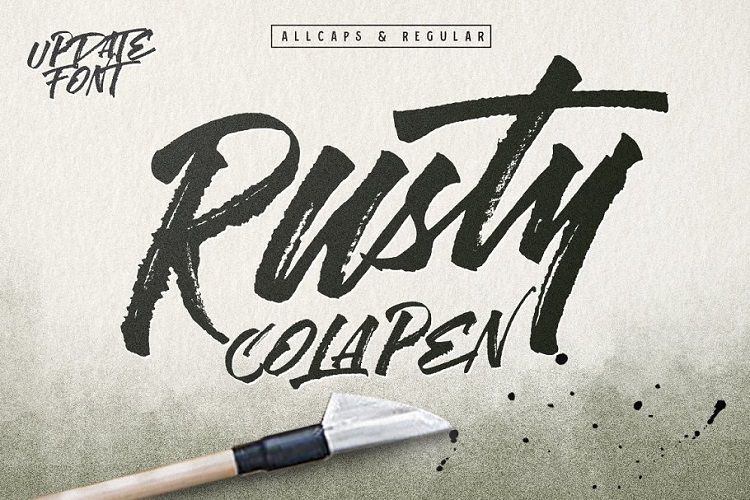
Rusty Cola Pen Font
usty ColaPen type is hand painted typeface designed to help you create the look of stunning custom hand-lettering.
Rusty ColaPen type comes with upper and lowercase characters, punctuation, numerals, and
Rusty ColaPen type is very best choice fonts for : ,quotes, Posters, Logos, Print Ads, Digital Ads, Promotion Product, video bumper, etc.
Stylistic alternates for key lower case characters are also available, accessible in the Adobe Illustrator Glyphs panel, or under Stylistic Alternates in the Adobe Photoshop OpenType menu.